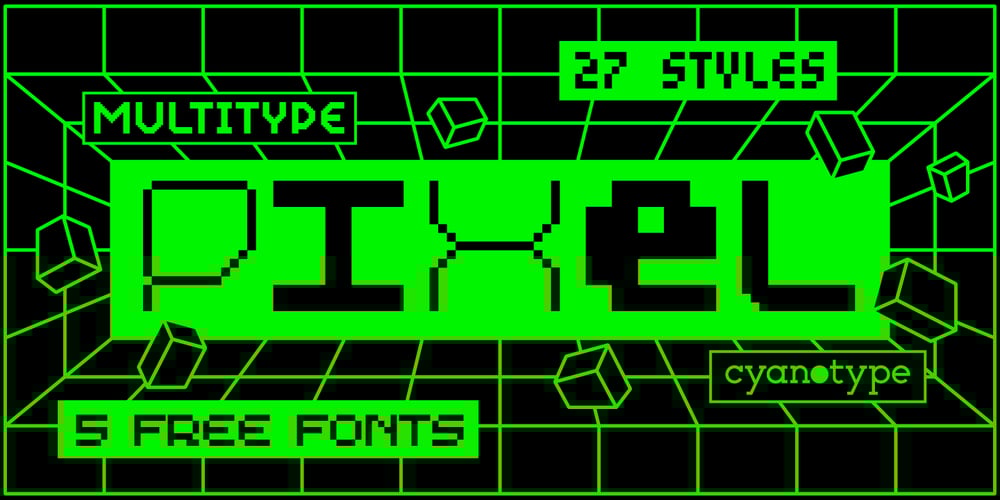
MultiType Pixel Font Family was designed by Damián Guerrero and published by Cyanotype. MultiType Pixel contains 27 styles and family package options. MultiType Pixel, an all caps typeface focused in display purposes. 27 styles to be mixed with retro gaming and computing vibes in a fresh way.This is the first release of an upcoming multiverse of mixable fonts. The whole family of typefaces has been designed to work at big sizes and display purposes such as branding, headlines, thumbnails, posters and animations. You can swap between the three additional alternate sets through all the styles to add diversity to your composition, even in Cyrillic. This version features small caps in a independent font file.MultiType Pixel is inspired by bitmap fonts, fonts from video games, arcades and variable fonts. Have fun mixing all the styles in your projects.